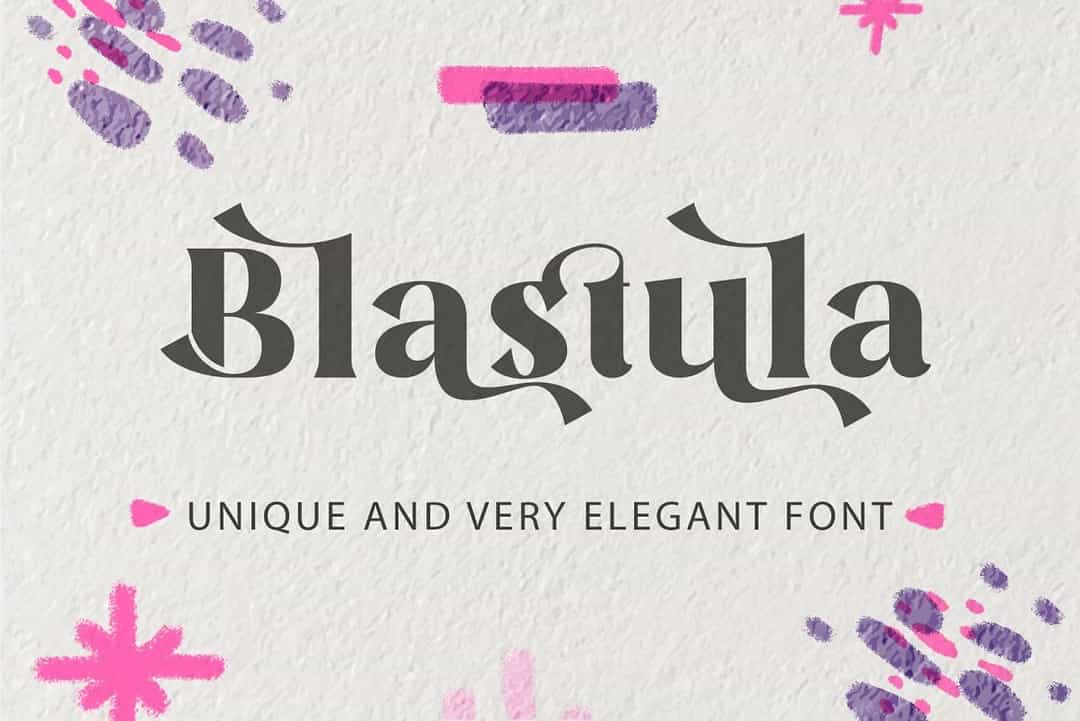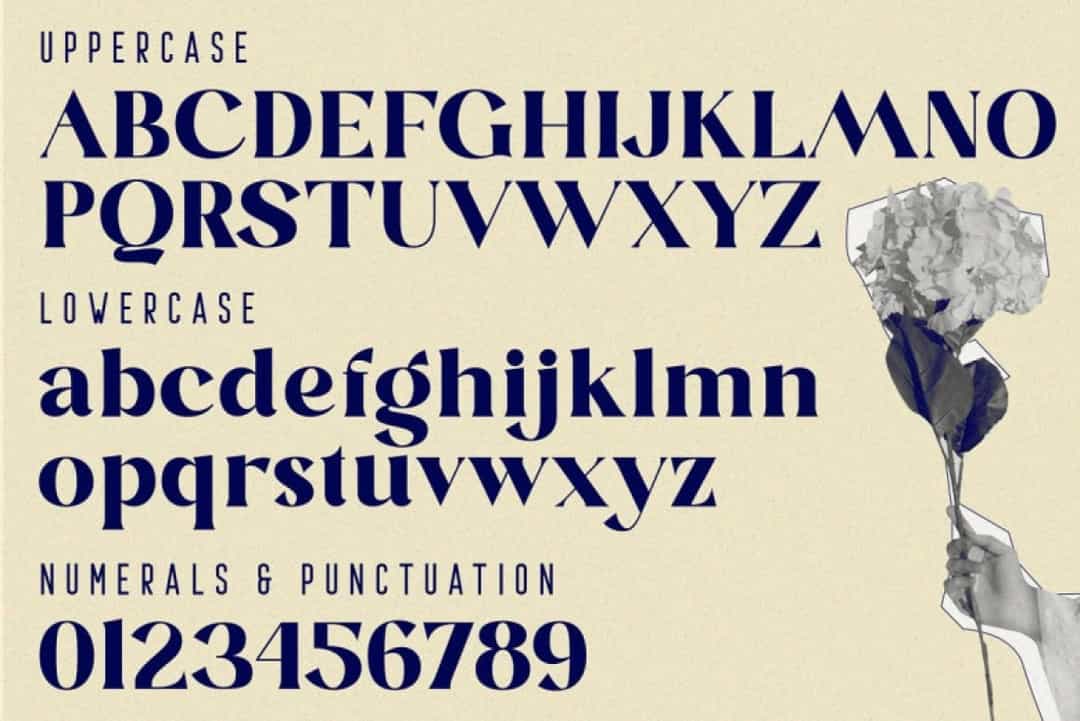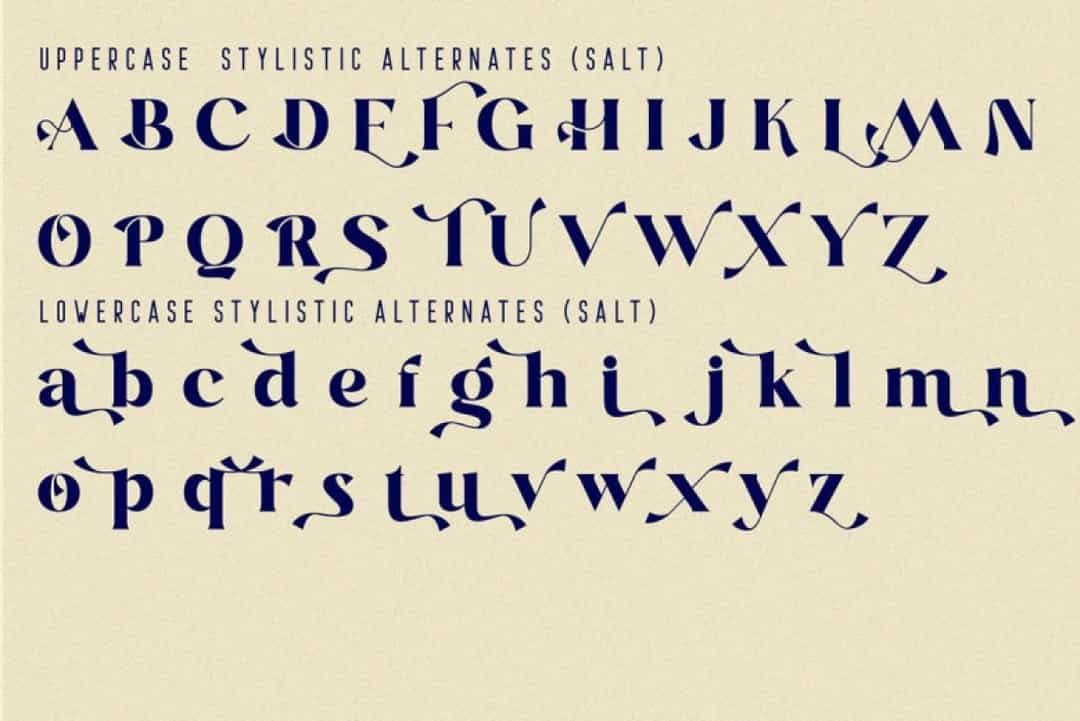
Blastula Font
Blastula is an outstanding vintage font that embodies modern and stylish aesthetic. Featuring stylistic variations and stunning cut-out Ligatures, each logo can be edited fully in Adobe Photoshop or Illustrator allowing for full branding LOGO design flexibility resulting in classy sophisticated, elegant logos which stand out from the crowd! You will enjoy using this font.